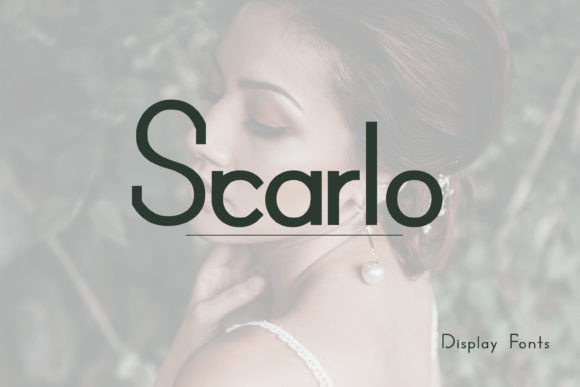
Unleash Your Creative Vision with Scarlo Font: Embark on a Typographic Odyssey
Discover the wonders of Scarlo Font, a display font that captivates with its cool, modern, and techno-inspired aesthetics. Dive into a world of limitless creativity, where Scarlo becomes your trusted companion in crafting designs, digital masterpieces, presentations, and heartfelt greeting cards. Its versatility knows no bounds.
Scarlo Font: A Typographic Symphony for the Digital Age
Scarlo Font is not just a collection of letters; it's an orchestra of visual elements that harmoniously blend to create a symphony of typographic brilliance. Each character is meticulously designed to strike a perfect balance between legibility and visual appeal. Whether you're navigating the vast digital landscape or leaving a lasting impression on paper, Scarlo Font amplifies your message with clarity and elegance.
Ignite Your Imagination with Scarlo Font: A Gateway to Creative Expression
With Scarlo Font at your fingertips, prepare to ignite the spark of imagination and set your creativity ablaze. This font enchants your designs with a captivating charm, transforming ordinary words into compelling narratives. Whether you're a seasoned designer navigating complex projects or a novice seeking to explore your artistic flair, Scarlo Font empowers you to weave visual tapestries that resonate with your audience.
Scarlo Font: The Perfect Canvas for Your Design Masterpieces
Unleash your inner artist and transform your creative visions into tangible masterpieces with Scarlo Font. Its versatility shines across a myriad of applications, from crafting logos that command attention to designing websites that leave a lasting impression. Let Scarlo Font be your muse, inspiring you to create designs that captivate and engage your audience, leaving them in awe of your typographic prowess.
Embark on a Typographic Adventure with Scarlo Font: Where Creativity Thrives
Scarlo Font beckons you to embark on a typographic adventure where creativity knows no limits. Whether you're crafting digital designs that dance across screens or greeting cards that warm hearts, Scarlo Font elevates your creations to new heights of artistry. Its meticulously crafted characters breathe life into your designs, igniting emotions and leaving an indelible mark on your audience.